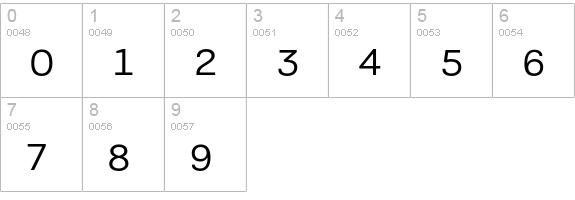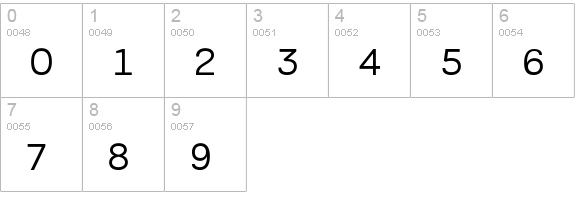
PFEncoreSansPro-Book is a comfortable, highly readable variant in the PFEncoreSansPro typeface family \xE2\x80\x94 well suited to long-form body text, articles, and editorial content.
PFEncoreSansPro-Book is a modern and versatile typeface that combines clean lines with a touch of elegance. The Book weight offers a perfect balance between readability and style, making it ideal for a wide range of design projects. Whether you're working on branding materials, editorial layouts, or web design, this font will add a professional and polished look to your work. One of the best features of PFEncoreSansPro-Book is that it is available for free download at FontsMarket.com. This means you can easily access and use this high-quality font without any cost. With its extensive character set and multiple language support, PFEncoreSansPro-Book is a valuable addition to any designer's toolkit. Elevate your projects with this sleek and sophisticated typeface today.